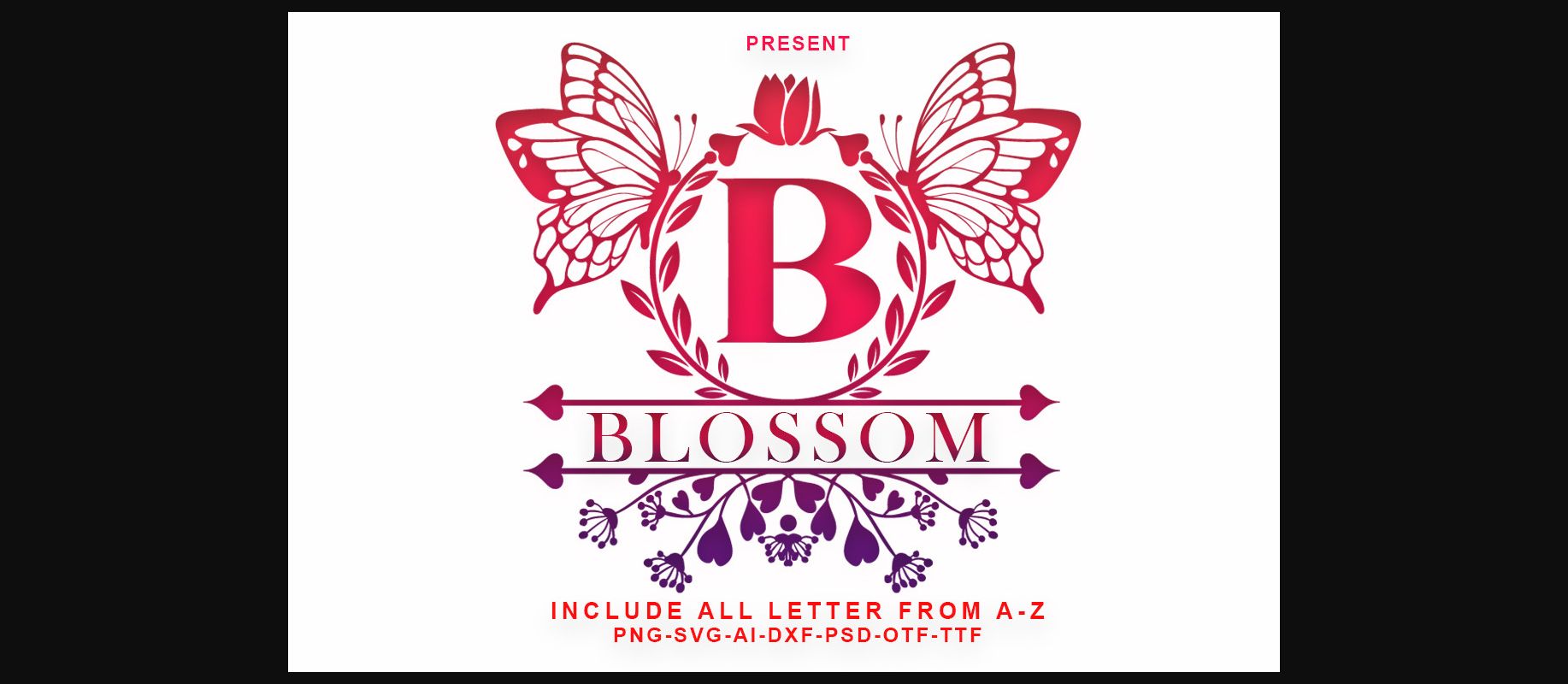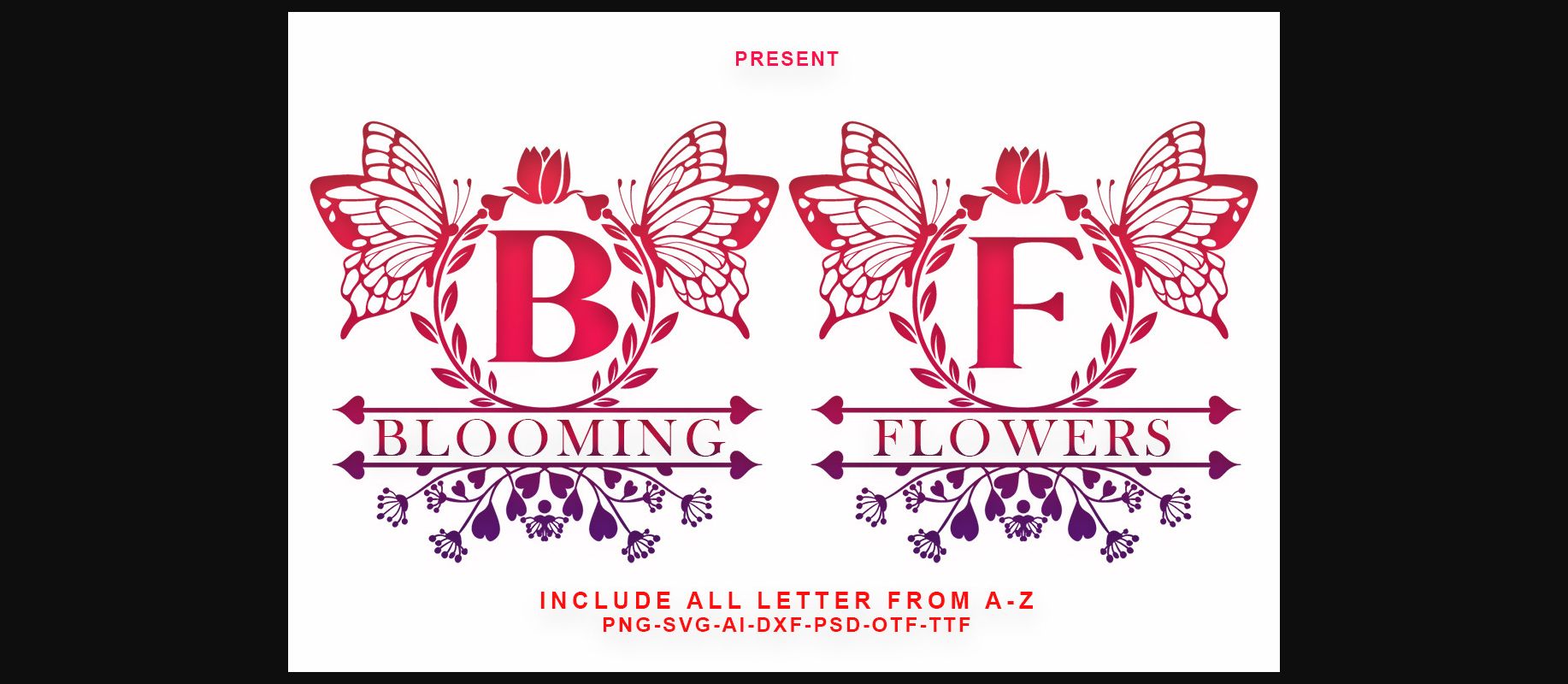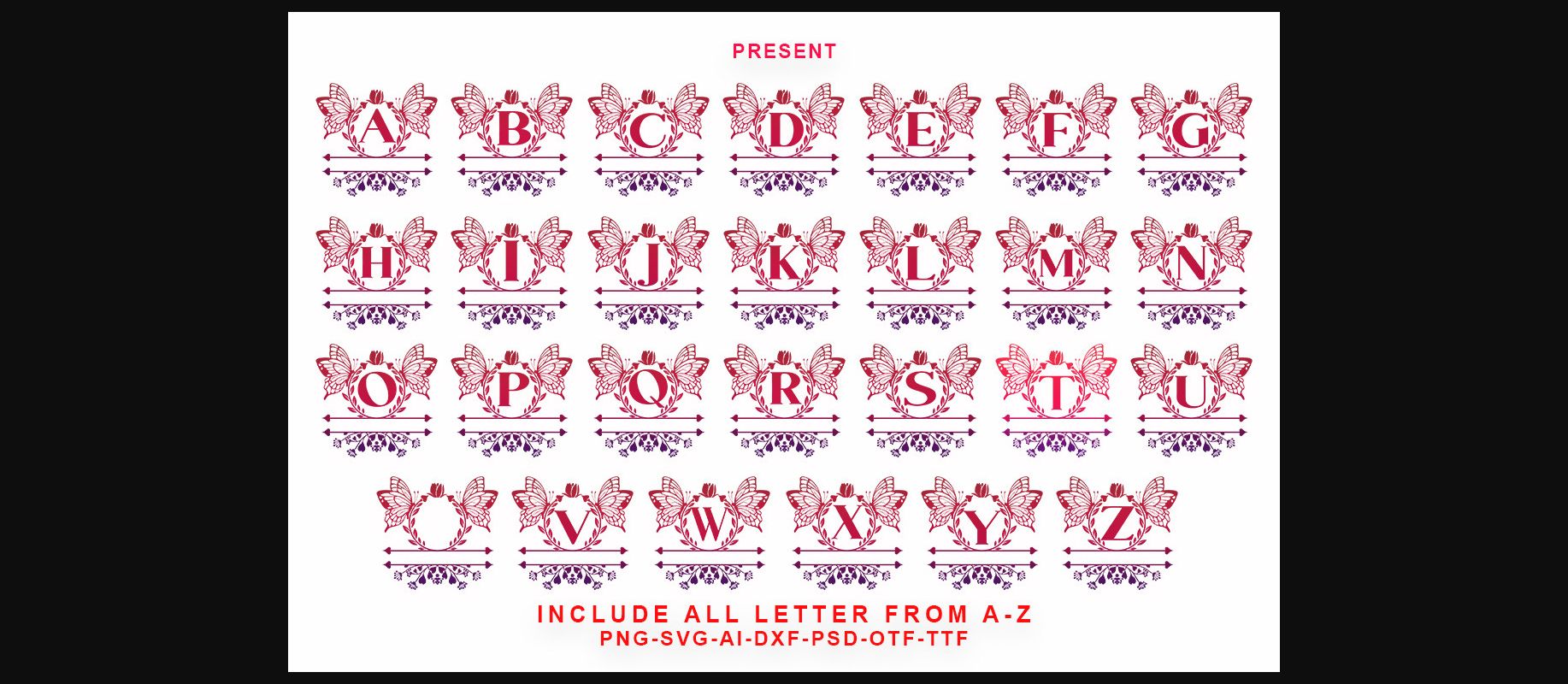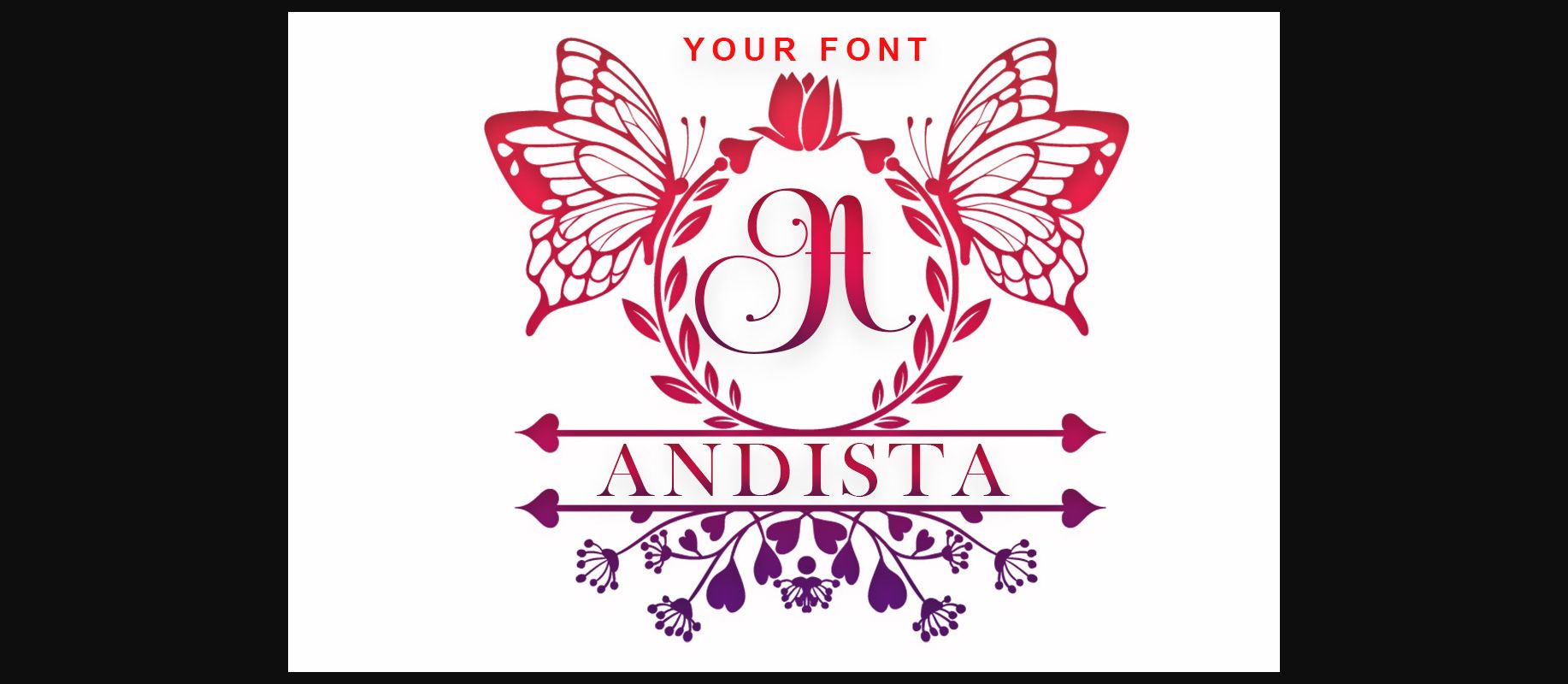
About Blossom Monogram Font
Blossom Monogram is an elegant decorative font, featuring lovely ornaments. Fall in love with its authentic feel and use it to create gorgeous wedding invitations, beautiful stationary art, eye-catching social media posts, and cute greeting cards.